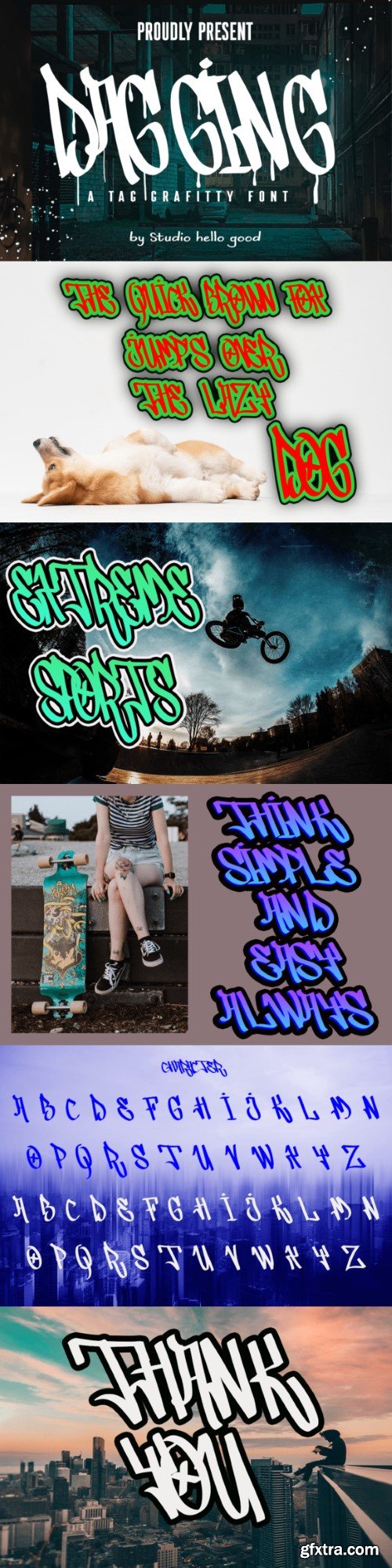
Introducing Dagging Font: Unleash Urban Edge with Graffiti Tag Typography! Step into the vibrant world of street art with Dagging Font, a bold and dynamic typeface that captures the raw energy and rebellious spirit of graffiti tagging. Inspired by the vibrant streets and expressive culture of urban environments, this font is designed to make a statement and leave an unforgettable mark wherever it’s used. Dagging Font is characterized by its sharp, angular lines and bold strokes, echoing the fluidity and spontaneity of graffiti tagging. Each letter is a work of art in itself, showcasing the creativity and individuality of the street artist behind it. Whether sprayed on a brick wall or emblazoned on a digital canvas, Dagging Font demands attention and commands respect.